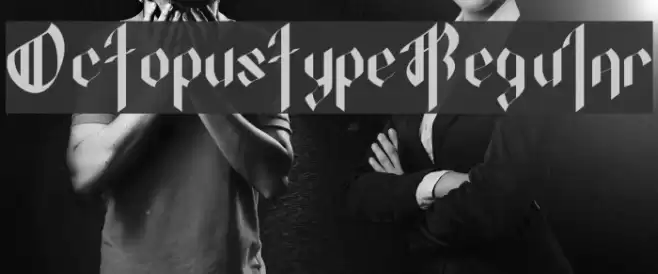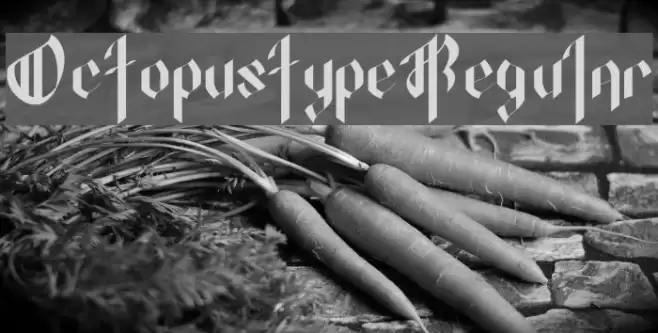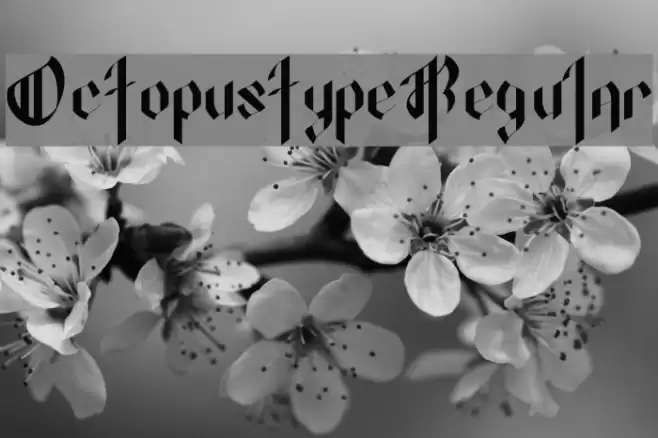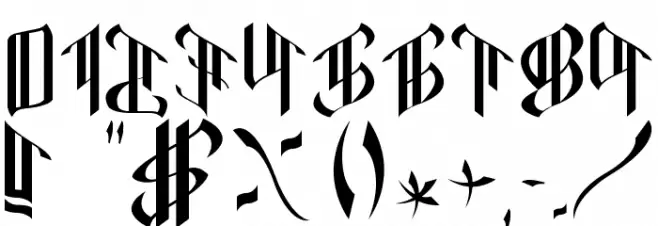
OctopustypeRegular Font
OctopustypeRegular Description
This font exhibits a striking blackletter style, characterized by its bold, angular strokes and intricate details. The uppercase letters are tall and narrow, featuring sharp edges and pointed serifs that give a sense of historical elegance. The lowercase letters maintain a consistent style, with a slightly more rounded appearance that complements the uppercase. The numerals and special characters are designed with the same attention to detail, ensuring a cohesive look throughout. This font's dramatic appearance makes it ideal for projects that require a touch of medieval or gothic flair.
A bold, blackletter font with sharp, angular strokes and intricate details from Uncategorized fonts.
- Proposed Projects: Ideal for historical documents, gothic-themed designs, book covers, posters, and branding that requires a medieval touch.
- Character Spacing: Tight
- Overall Style: Vintage
- Use Case: Logos, Headlines, Decorative text